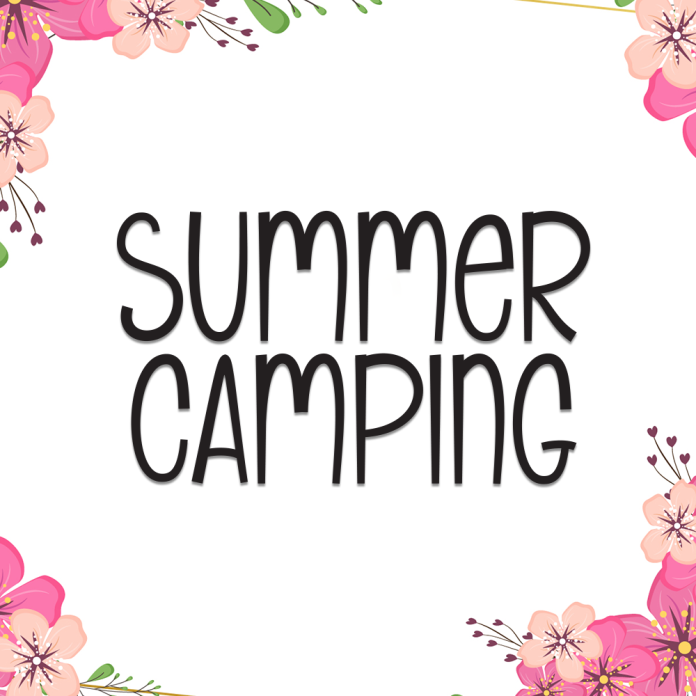
Summer Camping is a cheerful and bold display font that captures the essence of summertime fun, nature, and outdoor adventures. With its chunky, friendly letterforms and rustic personality, it’s perfect for themes involving campfires, hiking, and sunny holidays.
Whether you're creating posters, kids' projects, logos, or adventure-themed merchandise, Summer Camping will bring an outdoorsy charm to your designs.
Bold and friendly display type
Inspired by summer camp and outdoor exploration
Perfect for children’s books, banners, and travel graphics
Eye-catching for headers and signage
Let your creativity roam wild with Summer Camping – where every letter feels like a breath of fresh mountain air!